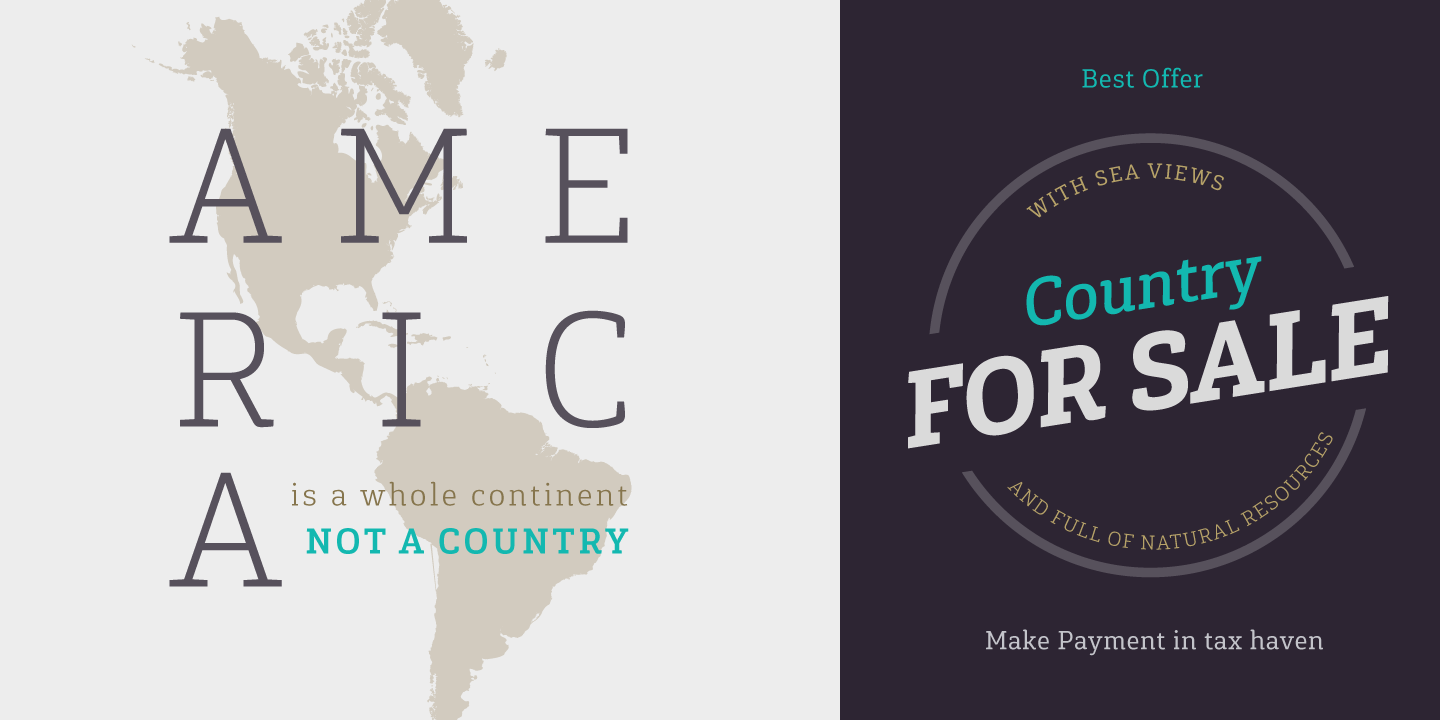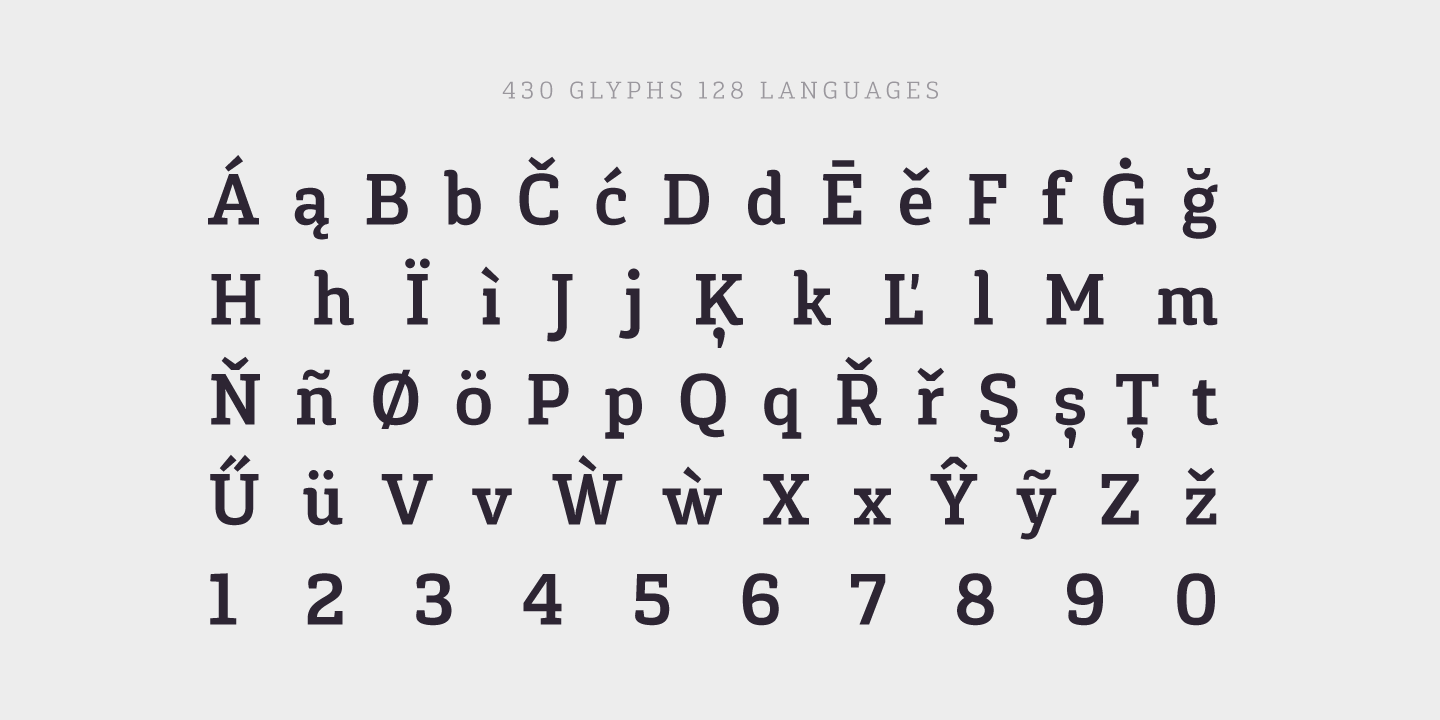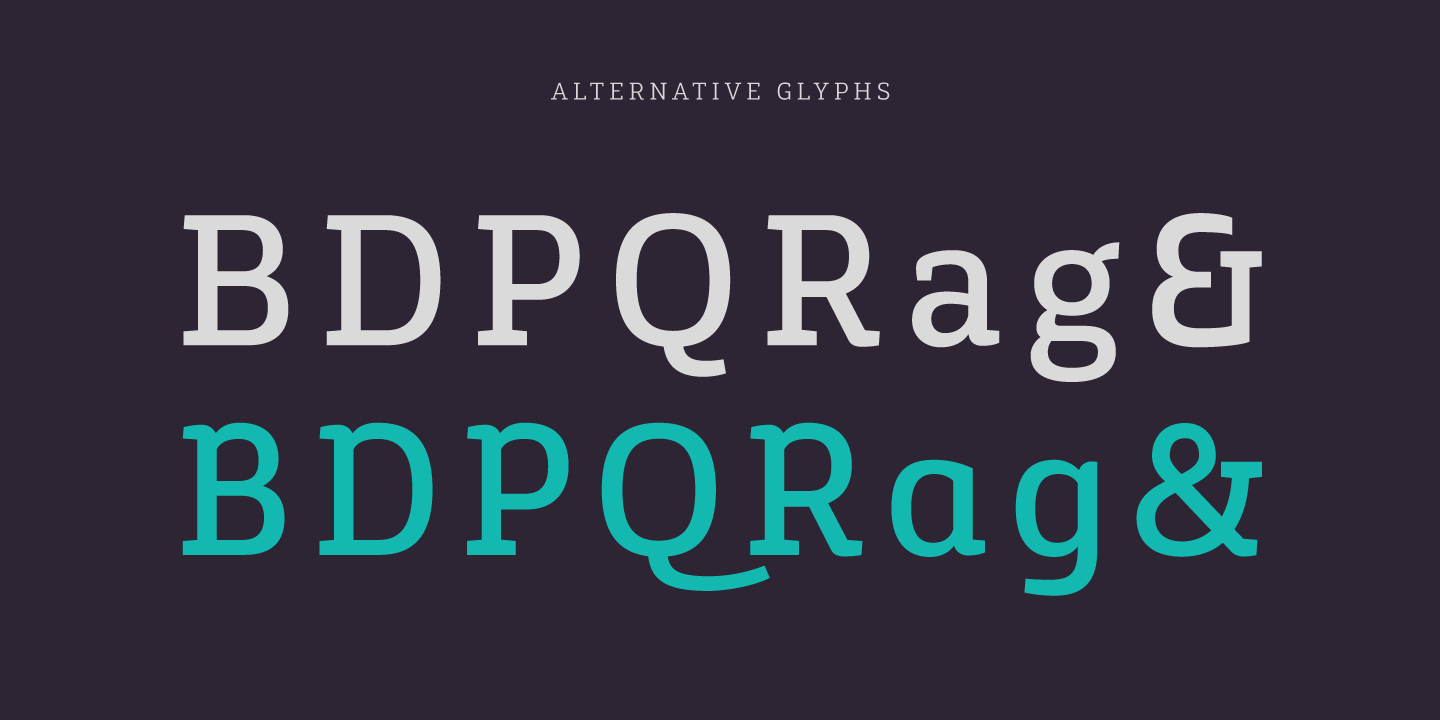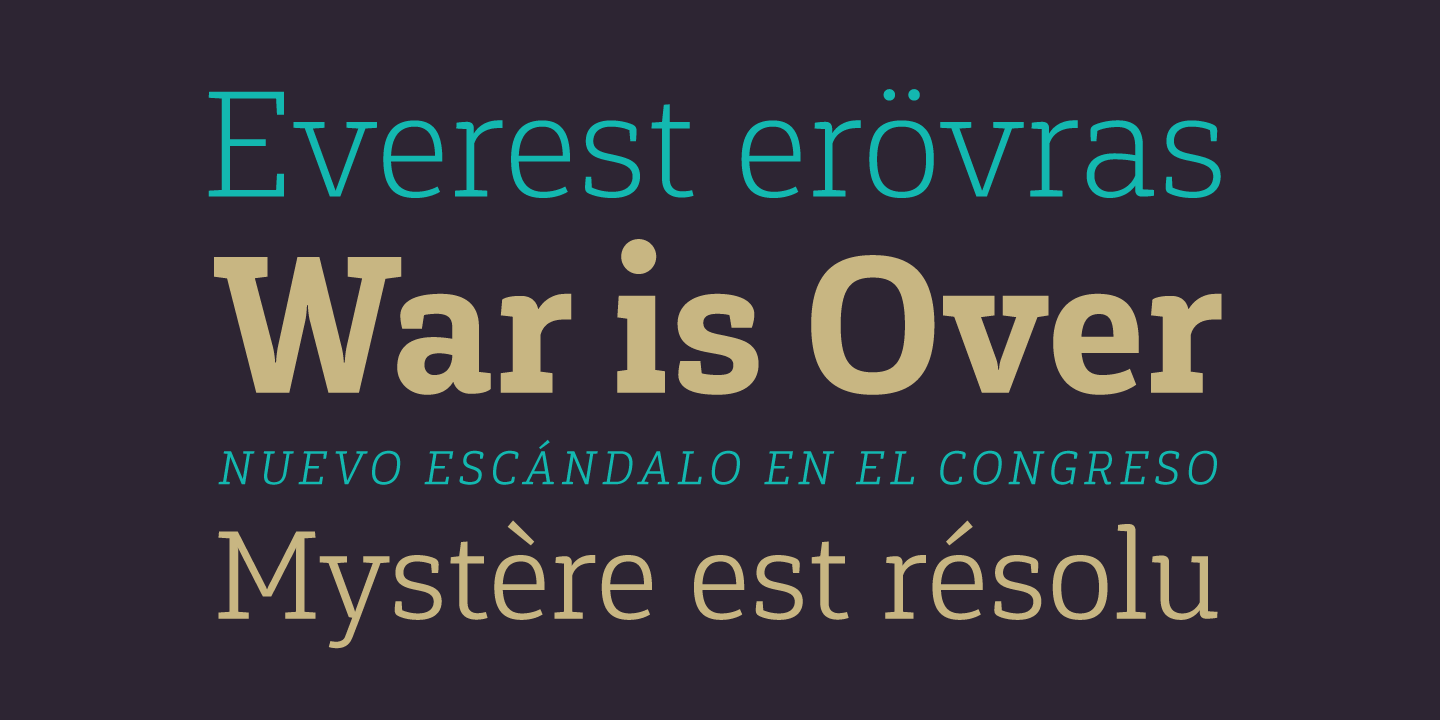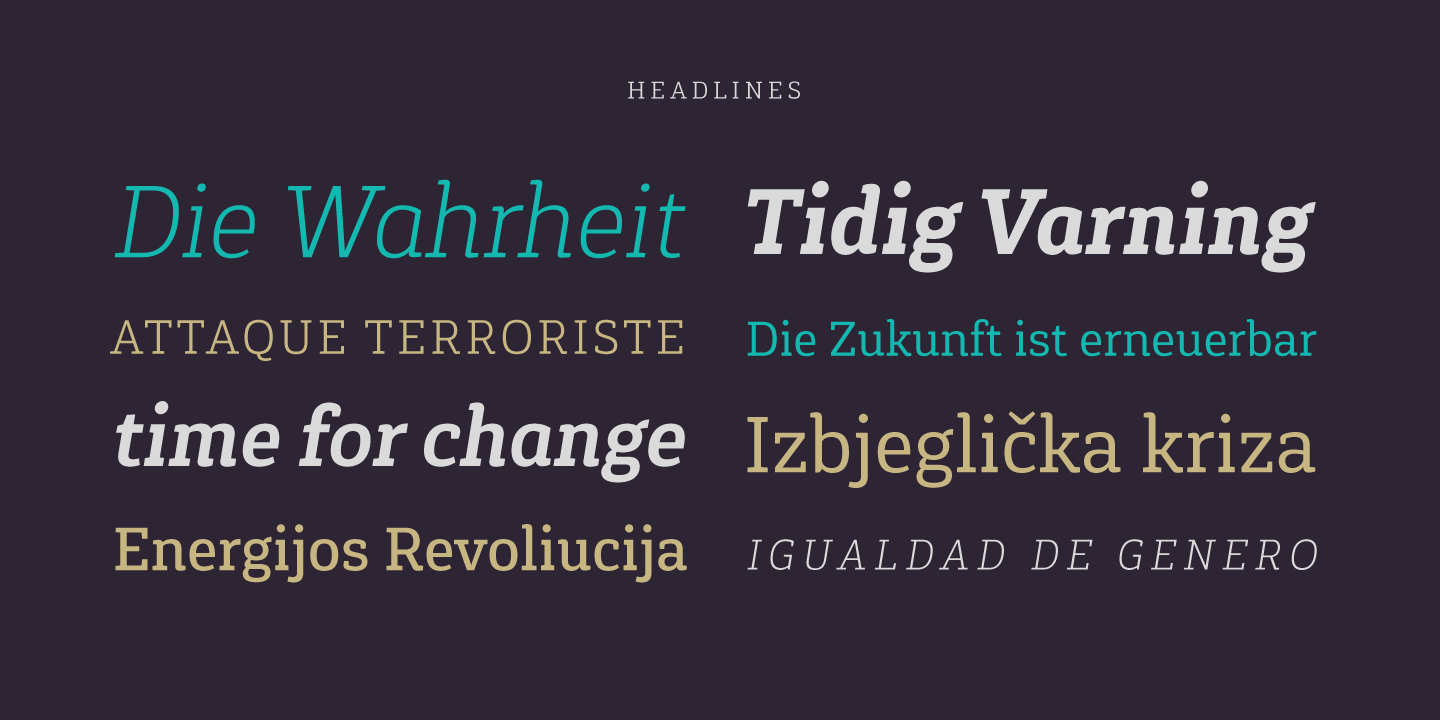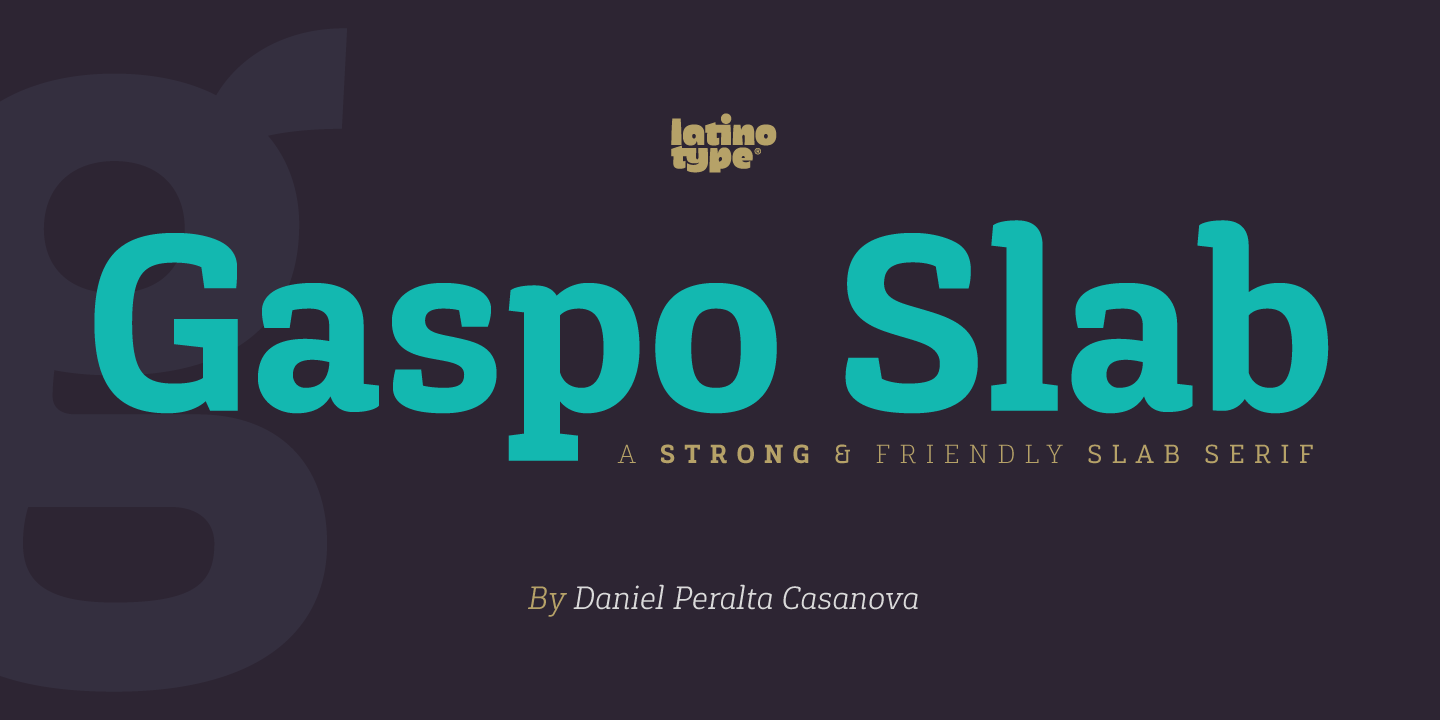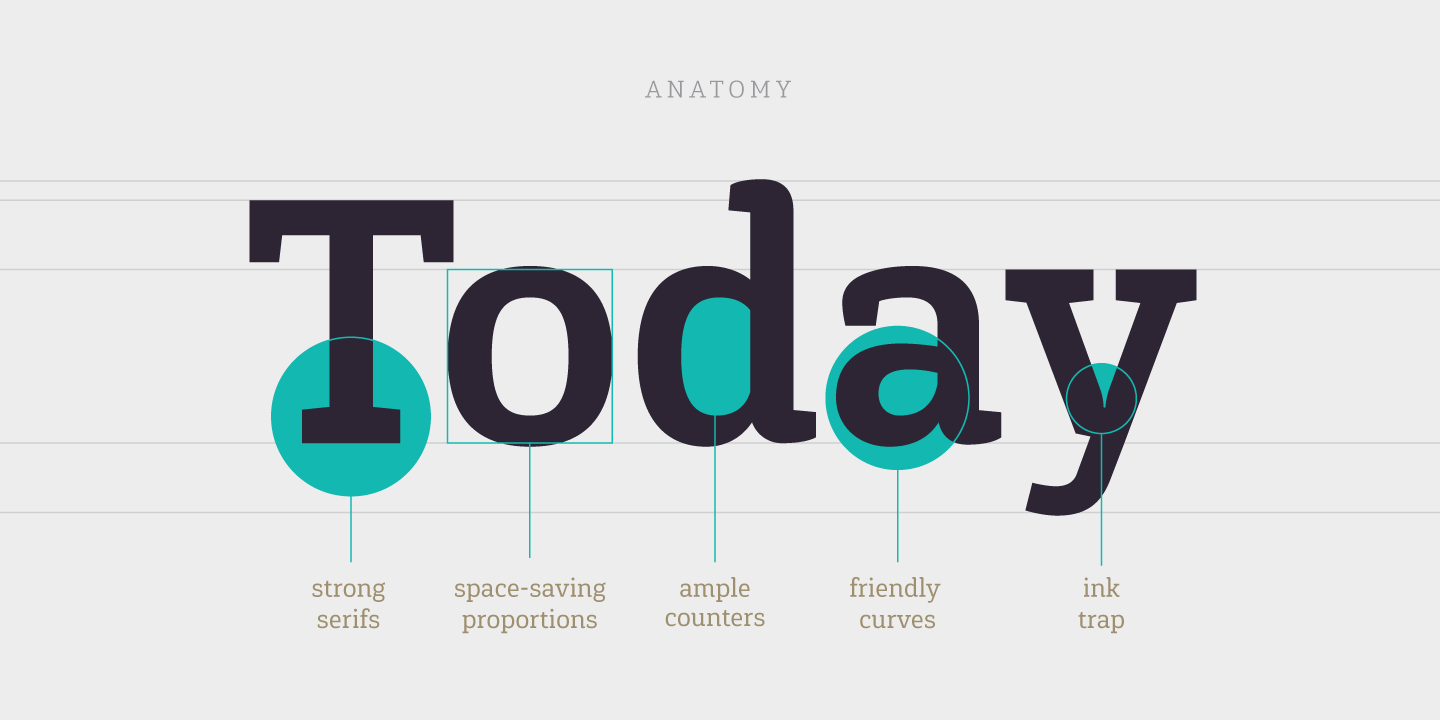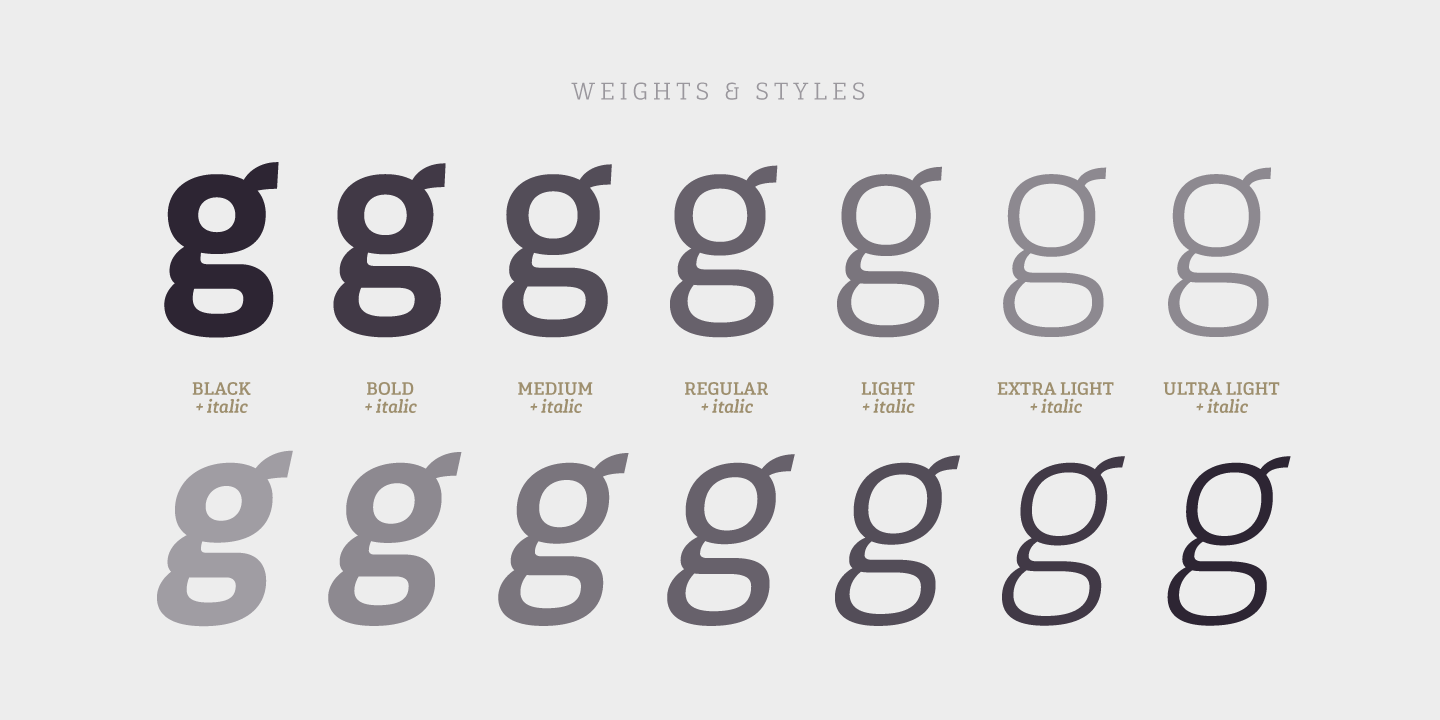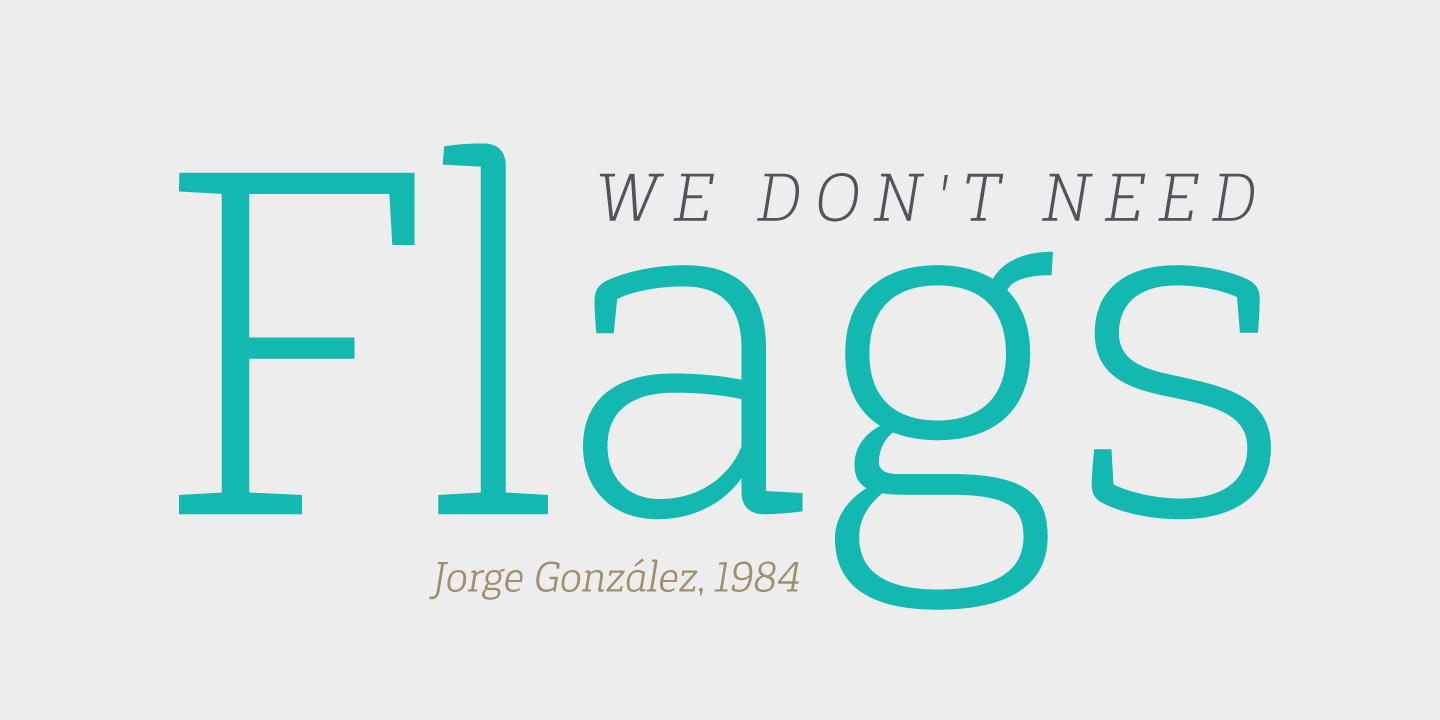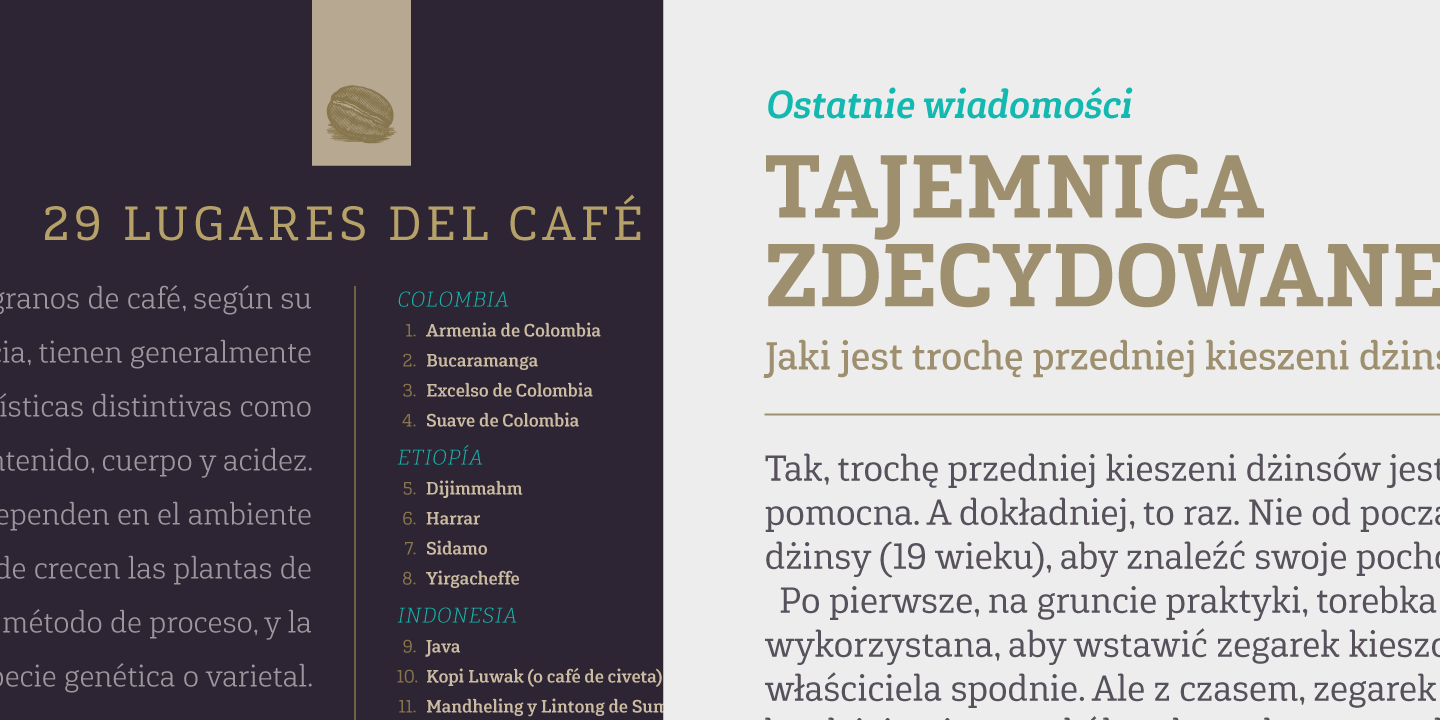
Gaspo Slab Family (14 fonts)
Gaspo Slab consists of 7 weights, from Ultra Light to Black, with matching italics. This family comes with a 434-character set that includes European diacritics, tabular figures, alternative characters, numerators and fractions, making it possible to use the font in 128 different languages.
The font is well-suited for headlines, medium-length text, magazines, newspapers, advertising, corporate use and product design.